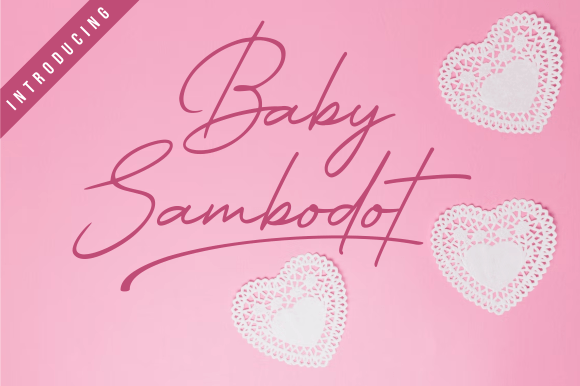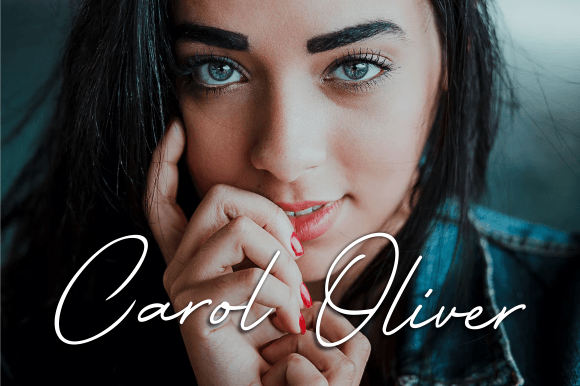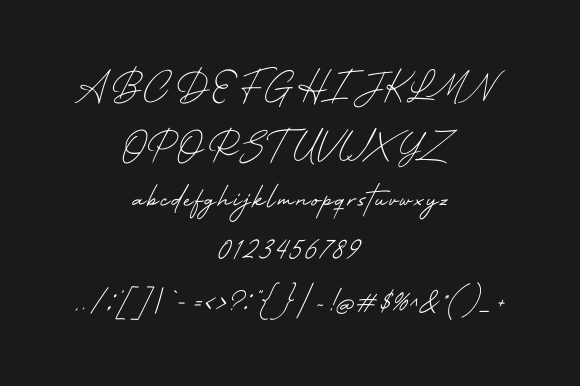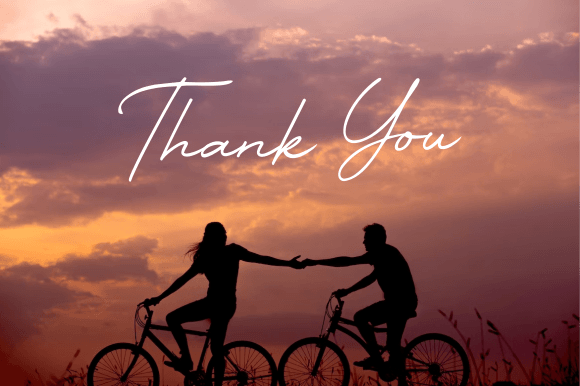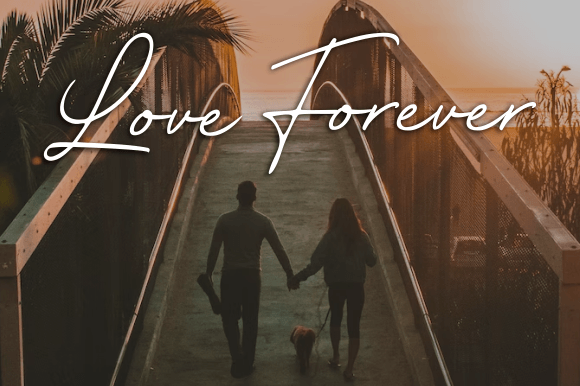
Baby Sambodot Font
About Baby Sambodot Font
Baby Sambodot is a sophisticated and romantic handwritten font. It will perfectly complement wedding invitations, business cards, beauty branding, advertisements, and so much more.